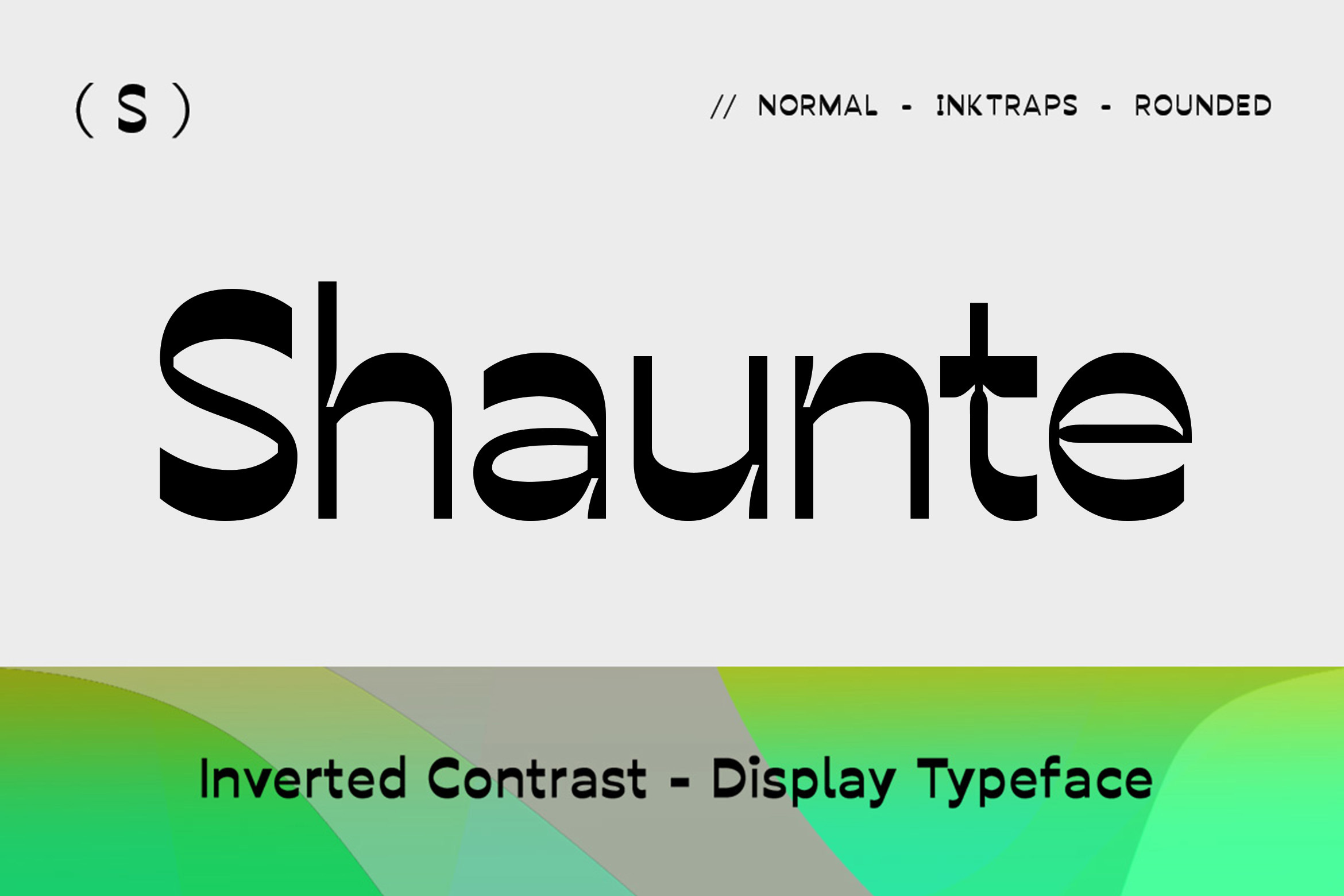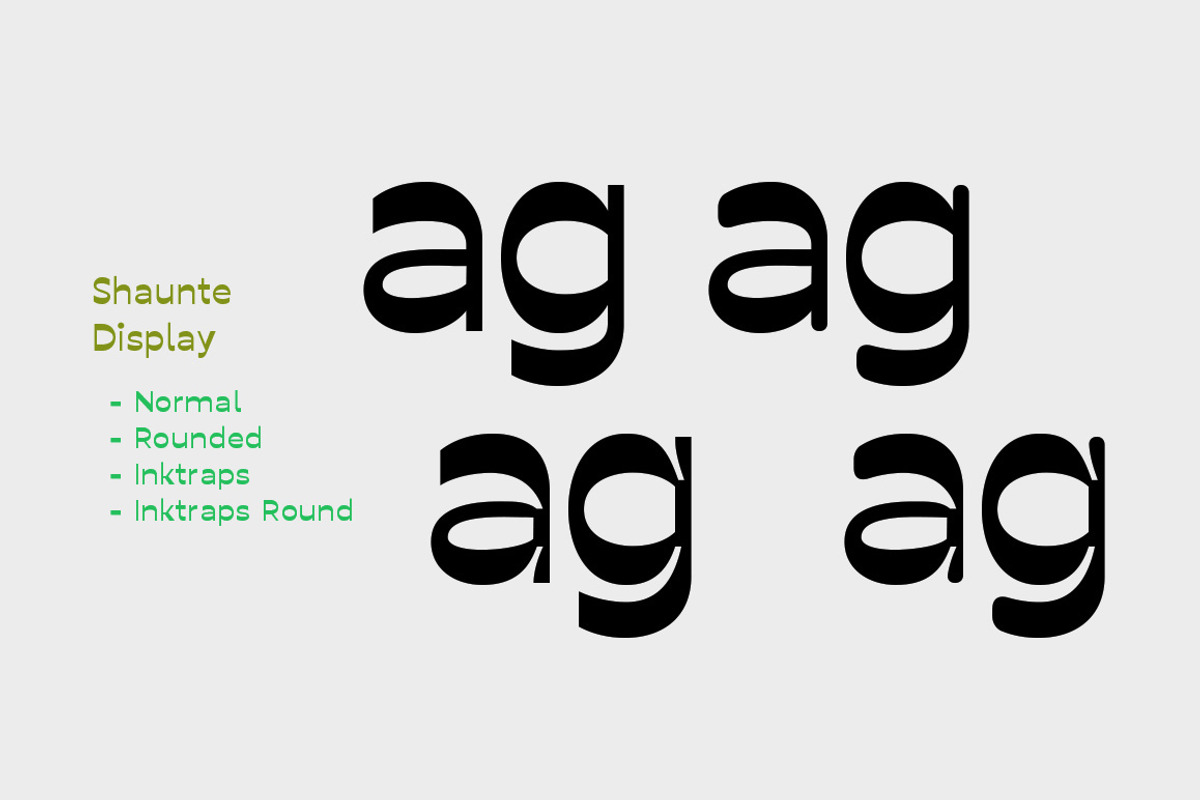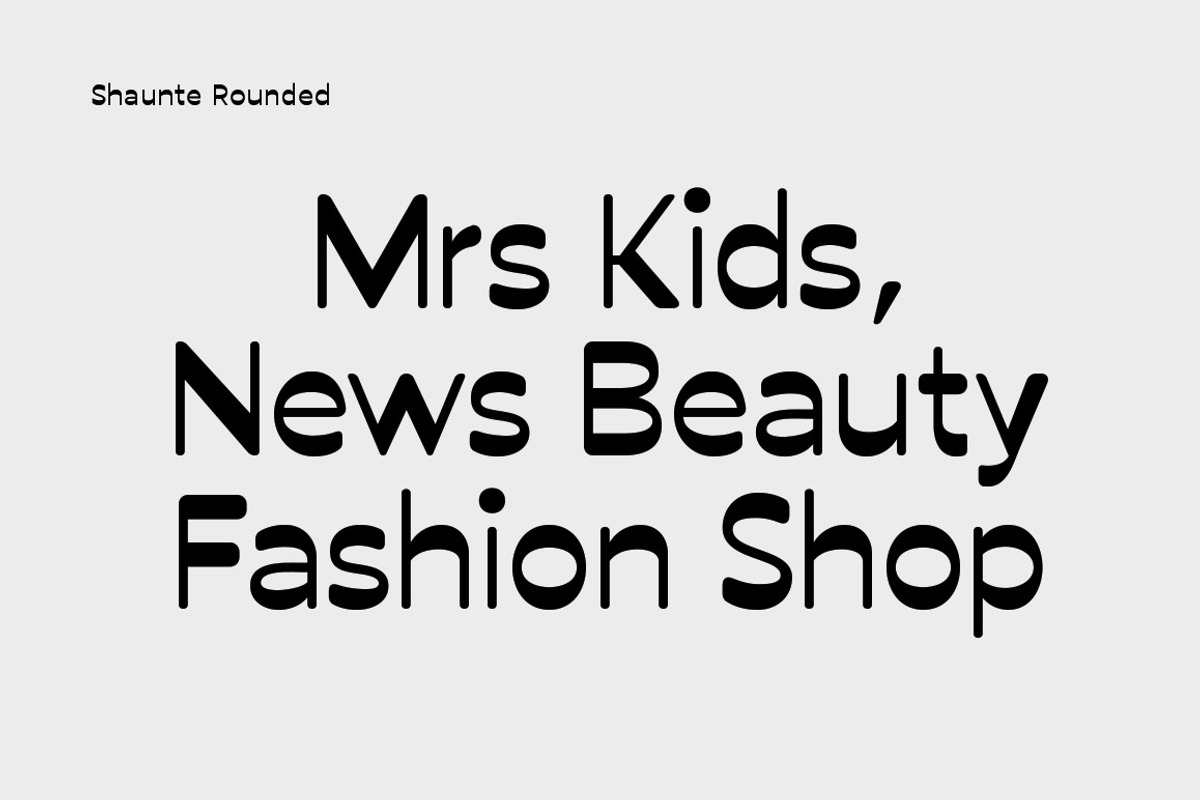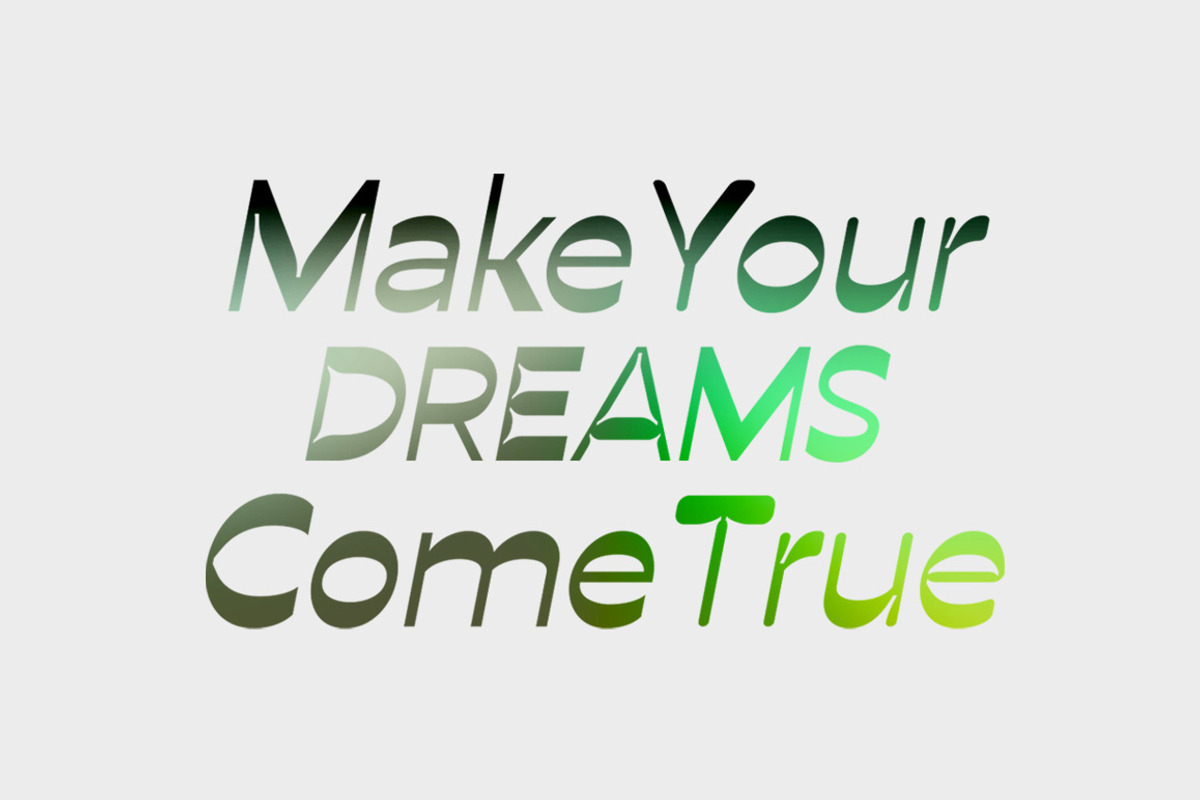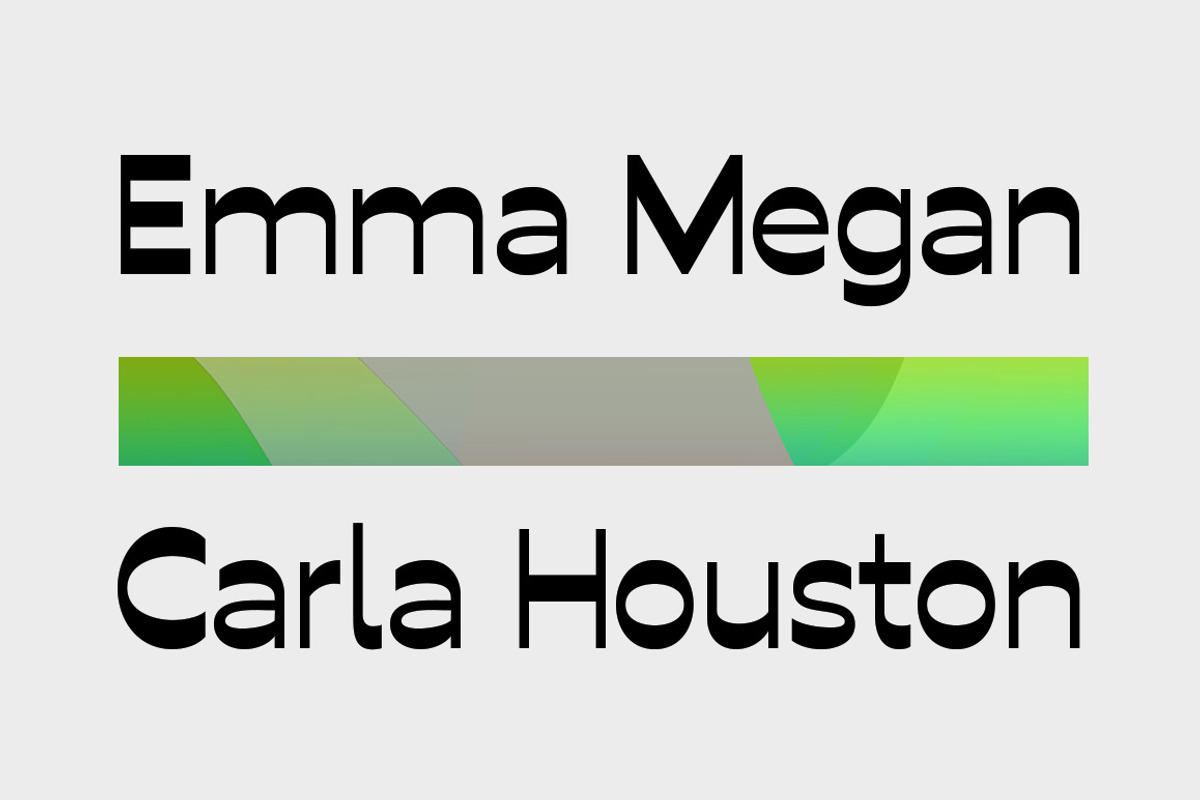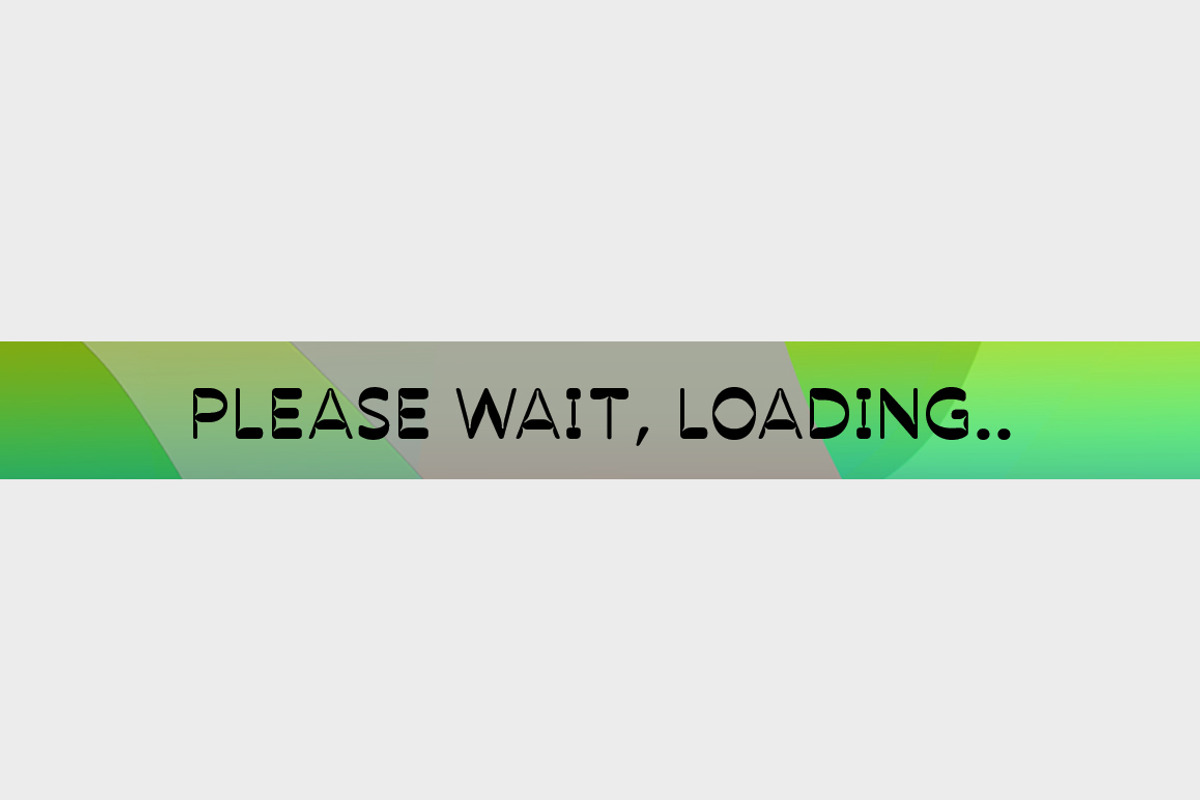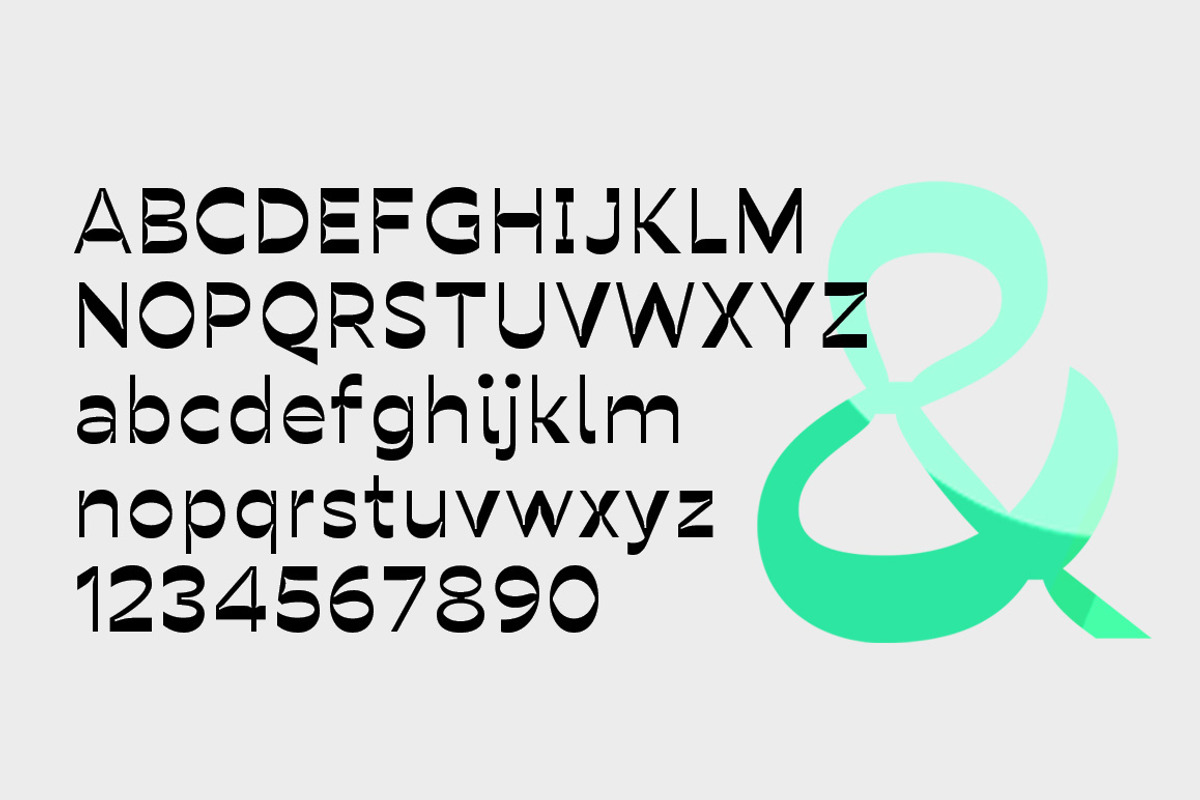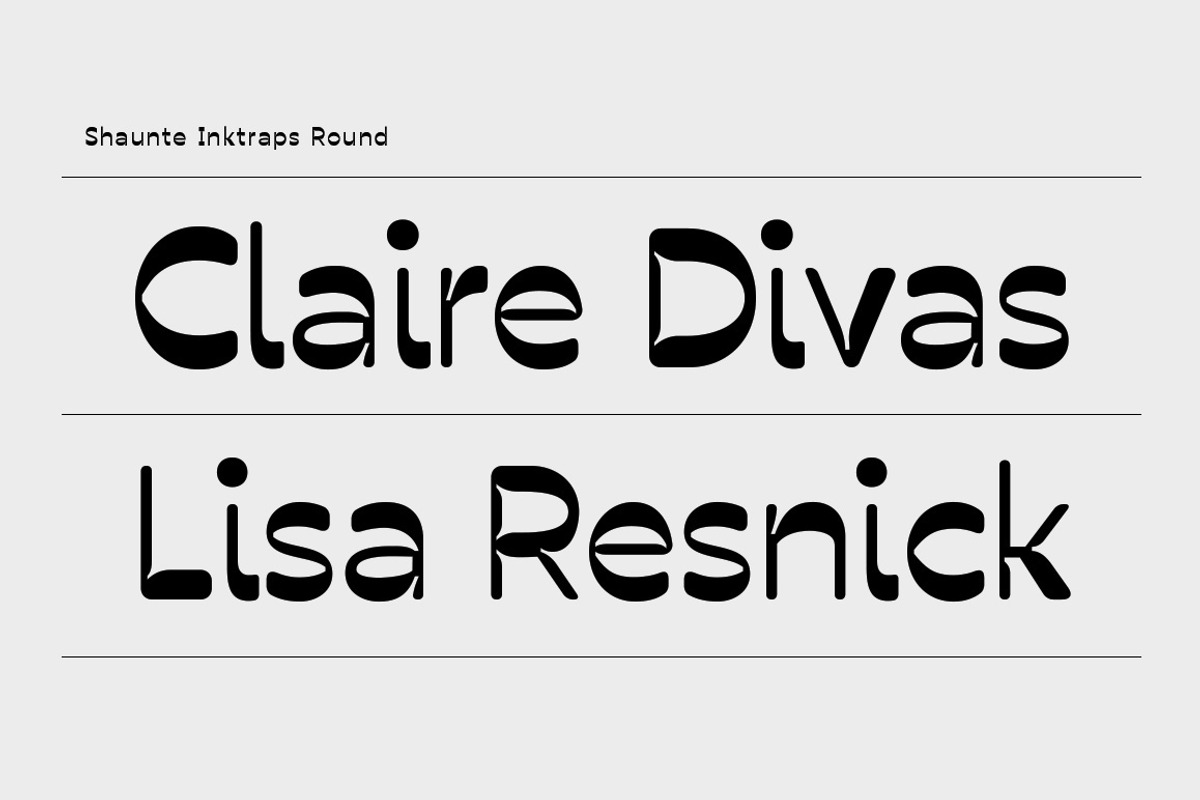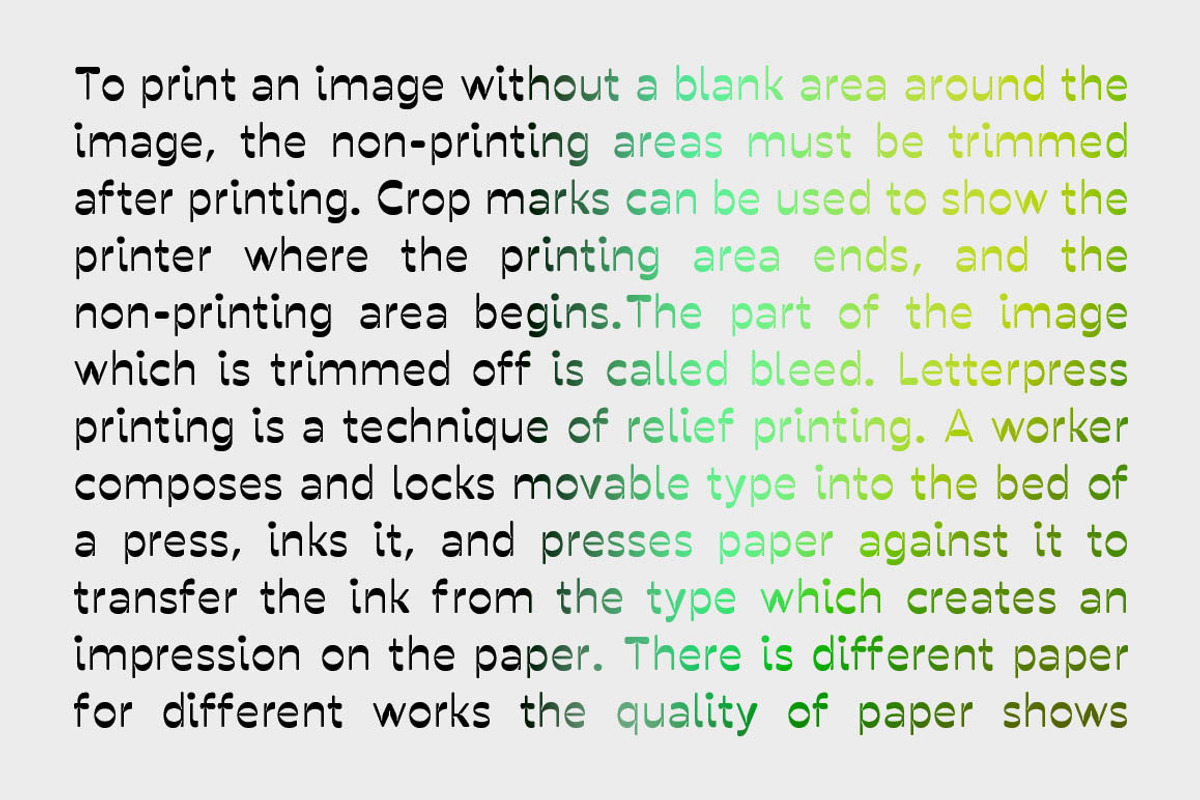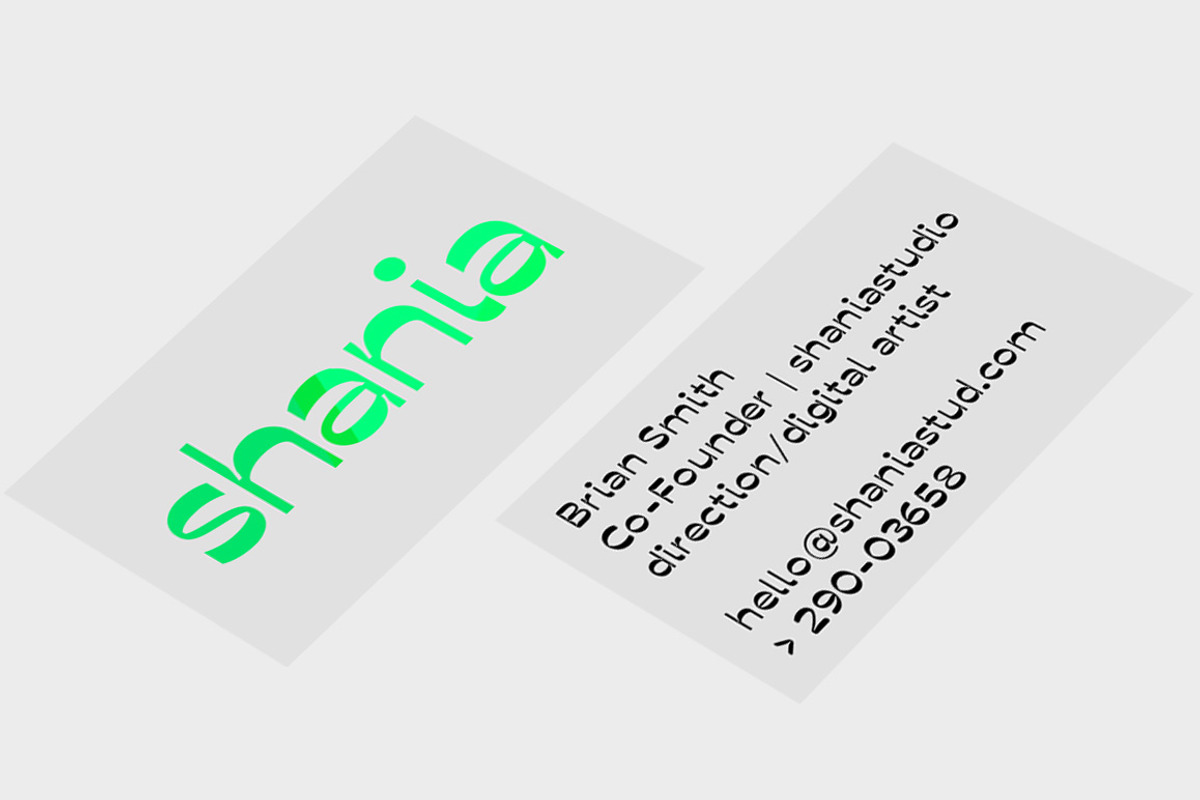
Shaunte Typeface
Shaunte is eye-catching display bold typeface that comes in four styles: normal, inktraps, rounded, inktraps rounded. a display sans-serif with an inverted or reverse contrast. Its imperfections keep it casual while still providing legibility. Shaunte is a powerful option at large sizes for use on headings, posters, billboards, magazines, advertisements etc.